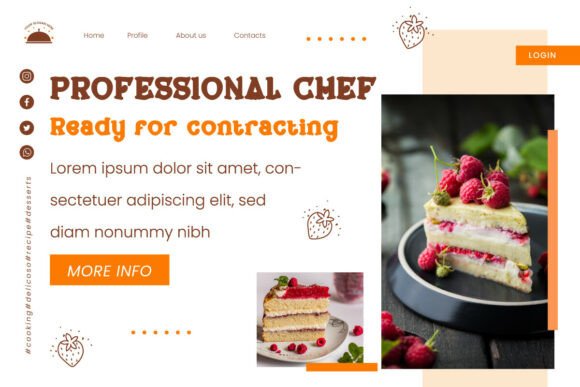
Introducing Guavasmoothies Font: The Sweetest Addition to Your Design Projects
Are you looking for a font that can add a touch of sweetness and playfulness to your design projects? Look no further than Guava Smoothies, a fun and playful display cartoon font that’s perfect for a wide range of designs. Inspired by cute children’s handwriting, Guava Smoothies has a bold and cheerful personality that makes it ideal for brands in the food and beverage industry, as well as designers who want to create expressive and fun designs.
What is Guava Smoothies Font?
Guava Smoothies is a rounded, monoline font that’s designed to add a sweet touch to any project. Its bold and cheerful personality makes it perfect for designs that require a playful and fun vibe. The font has a complete set of uppercase and lowercase letters, numbers, punctuation, and symbols, making it a versatile choice for a wide range of design projects.
What Can You Use Guava Smoothies Font For?
Guava Smoothies is a versatile font that can be used for a wide range of design projects, including:
- Brochures and flyers
- Greeting cards and invitations
- Logos and branding
- Product packaging
- Signage and displays
Its joyful and refreshing harmony makes it especially well-suited for brands in the food and beverage industry, such as:
- Bakeries
- Cafés
- Restaurants
- Food trucks
- Specialty food stores
Key Features of Guava Smoothies Font
Guava Smoothies has several key features that make it a great choice for designers:
- Complete set of uppercase and lowercase letters
- Numbers, punctuation, and symbols
- Multilingual support
Design Tips for Using Guava Smoothies Font
Here are some design tips for using Guava Smoothies font:
- Use Guava Smoothies font as a display font to add a playful touch to your designs
- Pair Guava Smoothies font with a clean, sans-serif font for a contrasting look
- Experiment with different colors and textures to add depth and interest to your designs
- Use Guava Smoothies font to create eye-catching headlines and titles
Guava Smoothies font is a fun and playful display cartoon font that’s perfect for adding a sweet touch to your design projects. Its bold and cheerful personality makes it ideal for brands in the food and beverage industry, as well as designers who want to create expressive and fun designs. With its complete set of uppercase and lowercase letters, numbers, punctuation, and symbols, Guava Smoothies font is a versatile choice for a wide range of design projects.